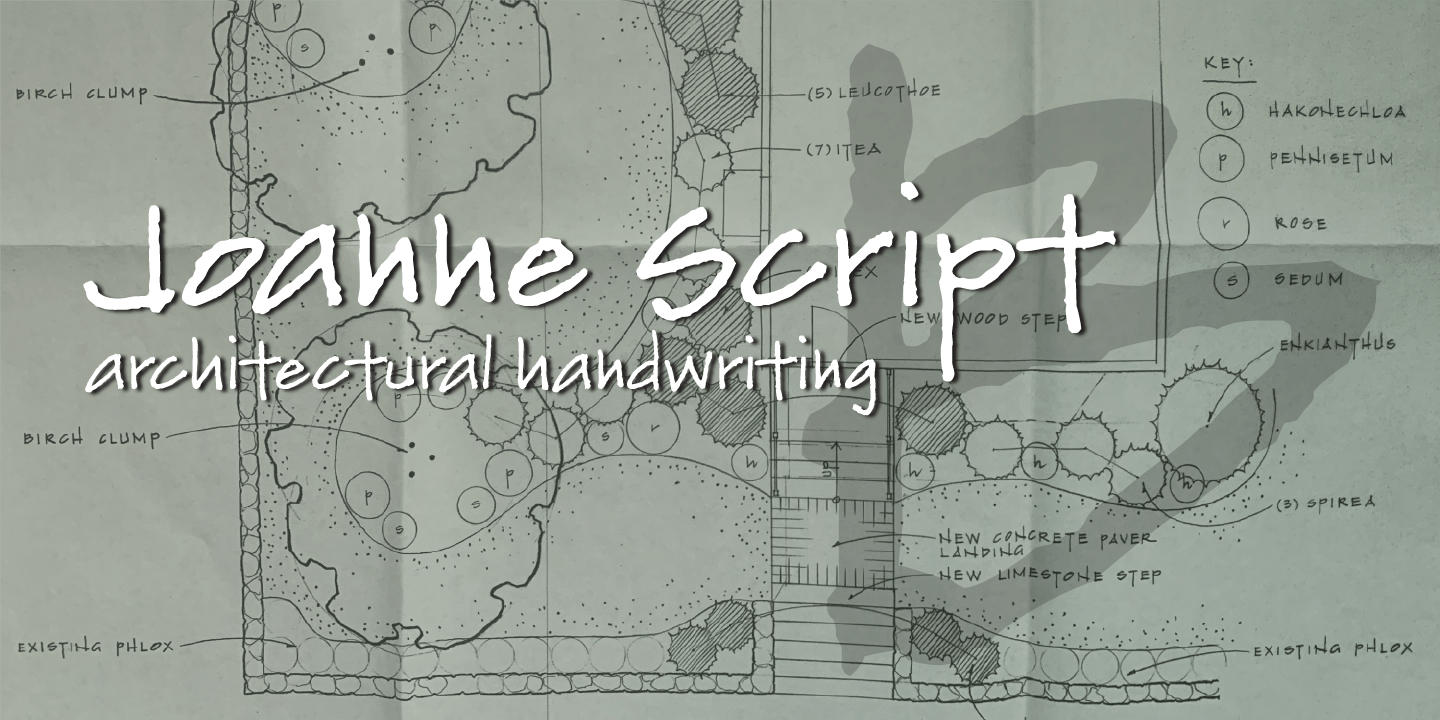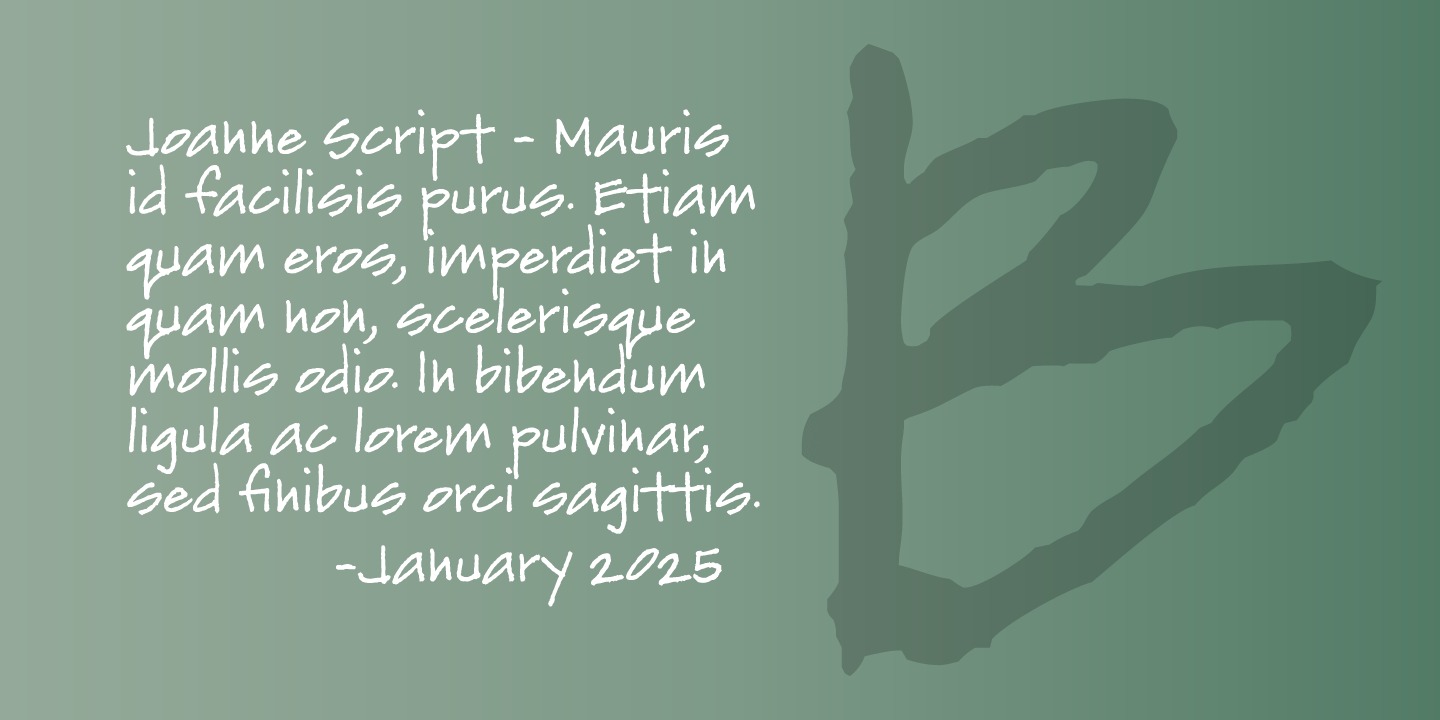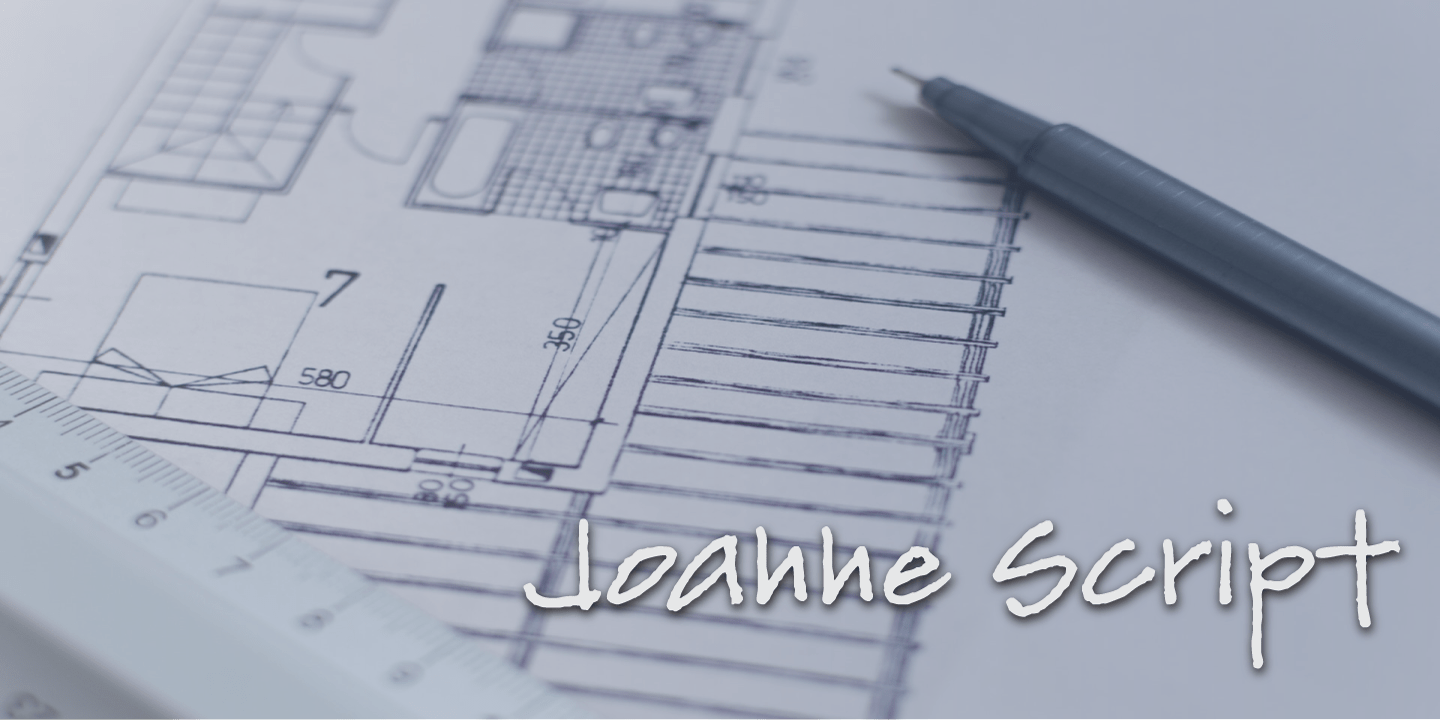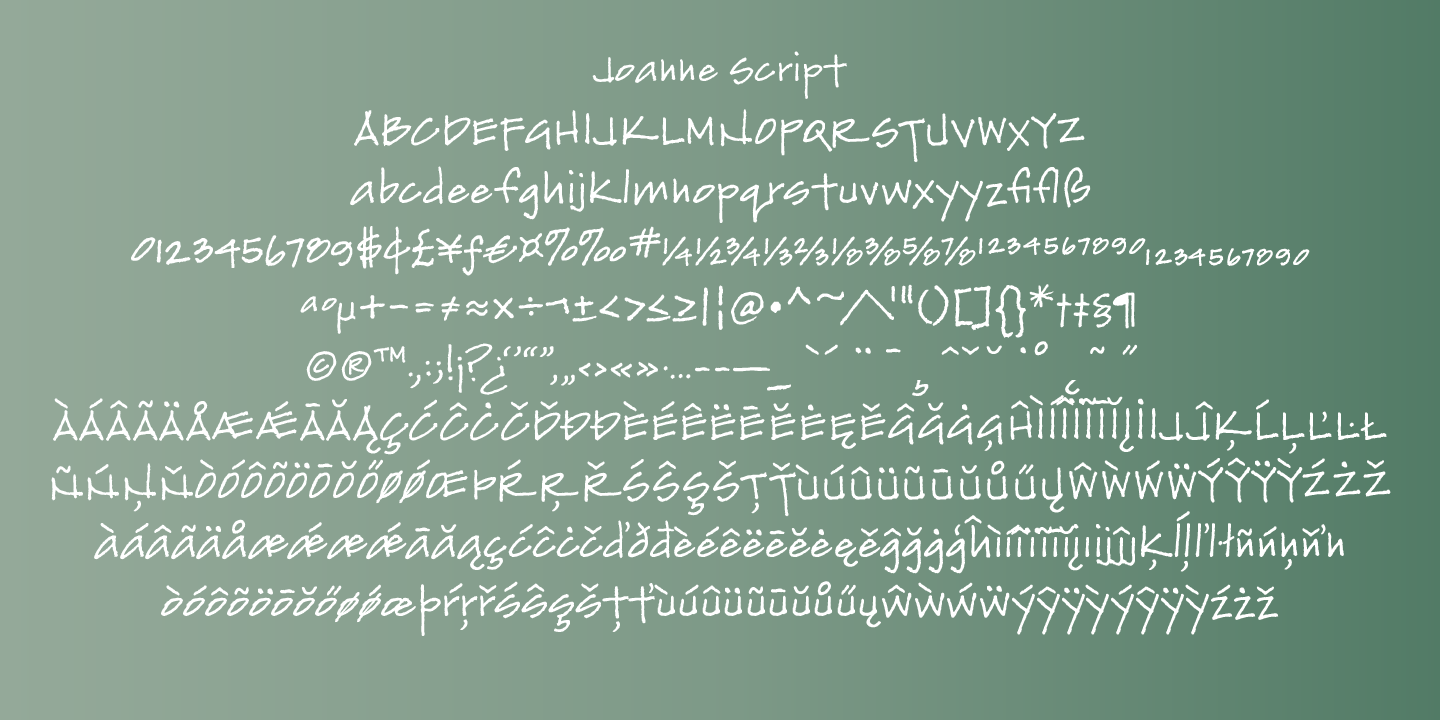
Joanne Script
Font Family by BluHead Studio
Joanne Script is part of our series of handwriting fonts, this one based on the handwriting of our friend who happens to be a landscape architect. It definitely has that text look from an architectural drawing, with all it's techie charm and rough texture!  Joanne Script supports an extended European character set.